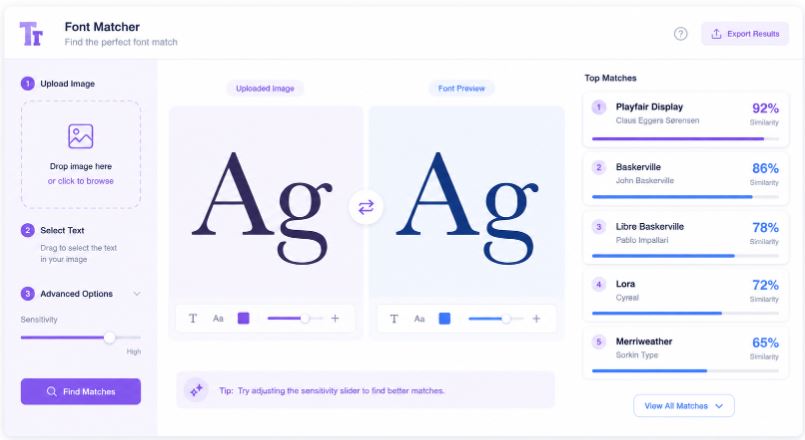
Online Font Finder for Instant Font Matches
Find fonts from images instantly with an online font finder built for designers, creators, and curious internet detectives.
An online font finder helps users identify fonts from images, screenshots, logos, or graphics without manually searching through endless type libraries. Upload an image, let AI analyze the lettering, and discover matching or similar fonts within seconds.
I used to think font identification was one of those oddly permanent internet frustrations. Like trying to remember a song from three notes or recognizing a face without knowing where you’ve seen it before. You stare at a logo, poster, Instagram graphic, or packaging design and somehow the font becomes the only thing your brain can focus on.
Not the message.
Not the product.
Just the typography.
And the strange part is how quickly it turns into a rabbit hole.
You zoom in. Squint at letters. Search phrases like “fonts similar to Netflix logo” or “what font is used in this image.” Then you open twenty browser tabs and convince yourself lowercase “a” shapes are somehow a reliable forensic tool.
That’s usually the moment people start looking for an online font finder.
Not because typography suddenly became fascinating overnight, but because manually identifying fonts feels unnecessarily difficult in a world where AI can describe paintings, transcribe speech, and generate entire videos.
The gap between “I found a font I love” and “I know what it is” has been surprisingly large for years.
That’s exactly where tools like Find Font enter the conversation. Instead of forcing users to become accidental typography historians, the process becomes visual, direct, and fast: upload an image, let AI analyze the letterforms, and get font matches instantly.
Simple idea. Massive relief.
And honestly, that relief matters more than most people expect.
What Is an Online Font Finder?
An online font finder is a tool that identifies fonts from uploaded images, screenshots, graphics, logos, or photos containing text.
Instead of searching manually through thousands of typefaces, users upload an image and let AI analyze visual characteristics like:
• Letter shapes
• Character spacing
• Stroke thickness
• Serif structure
• Curves and geometry
• Font weight and style
The tool then suggests exact or visually similar font matches.
At first glance, it sounds like a niche problem. Until you realize how often typography appears in daily life.
A restaurant logo.
A YouTube thumbnail.
A wedding invitation.
A startup landing page.
Fonts quietly shape emotional perception everywhere online.
According to typography research from MIT Press Reader, typography directly influences readability, trust, and emotional response. People react to fonts before consciously processing words.
That tiny detail changes everything.
Because suddenly finding a font isn’t just about aesthetics anymore. It’s about recreating a feeling.
Why Font Identification Feels So Frustrating
There’s a hidden reason people struggle with font identification: most fonts look deceptively similar until they don’t.
Two sans-serif fonts may appear identical from far away. But then one letter changes shape and the entire typeface reveals a different personality.
It’s subtle. Almost psychological.
One font feels corporate.
Another feels cinematic.
Another feels playful without trying.
The human brain notices these shifts even when it cannot explain them.
That’s why traditional font searching often breaks down. Users usually don’t know:
• The font family
• The designer
• The typography category
• The naming convention
• Whether the font is custom-made
They only know one thing:
“I saw this somewhere and now I need it.”
An online font finder solves that emotional gap between inspiration and identification.
How an Online Font Finder Actually Works
Most people imagine font recognition tools operating like magic. Upload image. Receive answer. Done.
But underneath that simplicity is a layered visual analysis process.
Image Processing Comes First
Before fonts can be identified, the uploaded image needs cleanup and interpretation.
AI systems typically analyze:
• Text isolation
• Contrast levels
• Character clarity
• Perspective distortion
• Background noise
Low-quality screenshots create friction here. So do blurry logos and angled photos.
A clean image dramatically improves recognition accuracy.
Character Recognition Matters More Than People Realize
The real breakthrough happens when the tool examines individual letterforms.
The curve of “R.”
The tail of “Q.”
The width of “M.”
Typography is basically fingerprint analysis for letters.
According to Find Font, modern AI-based font recognition systems compare uploaded typography against extensive font databases to surface highly relevant matches quickly.
That speed changes user behavior entirely.
People stop hesitating before searching.
Why Designers Depend on Online Font Finder Tools
Professional designers rarely work in a vacuum.
Creative work constantly intersects with existing visual culture. A client sends a screenshot. A brand references another campaign. A creator spots typography on social media and wants something similar.
Without an online font finder, the workflow becomes painfully manual.
Designers often end up:
• Comparing fonts one by one
• Browsing giant typography libraries
• Guessing font families
• Reverse-engineering branding assets
That process drains creative energy fast.
Ironically, the longer someone searches for a font, the less creative they become.
Because energy shifts from creation into investigation.
An AI-driven online font finder compresses that investigation into seconds.
And psychologically, that matters.
It keeps momentum alive.
The Hidden Emotional Side of Typography
Most articles about fonts stay technical. Serif versus sans-serif. Kerning. Readability metrics.
But typography is emotional architecture.
Fonts quietly tell users how they should feel before they consciously read anything.
A luxury serif whispers elegance.
A rounded font feels approachable.
A condensed bold typeface creates urgency.
People rarely articulate this directly, but they respond to it constantly.
That’s why identifying fonts feels strangely personal.
You’re not only identifying text style. You’re trying to recreate a mood you experienced somewhere else.
An online font finder becomes less like a technical utility and more like visual memory retrieval.
That sounds dramatic until you actually use one.
Then it suddenly makes perfect sense.
Why Upload-Based Font Detection Beats Manual Search
Manual font searching still exists. Some people enjoy it. Designers sometimes treat it like detective work.
But for most users, manual searching introduces unnecessary friction.
Manual Search Problems
• Requires typography knowledge
• Consumes time
• Depends on visual guessing
• Often produces inaccurate matches
• Creates decision fatigue
Now compare that with upload-based AI detection.
AI-Powered Font Detection Advantages
Manual SearchAI Upload Detection
Slow comparison processInstant analysis
Requires font expertiseBeginner-friendly
Limited visual memoryDatabase-driven matching
High frustration rateFast recommendations
Guess-based workflowPattern recognition
The shift feels similar to reverse image search changing how people identify photographs online.
Once users experience instant recognition, going backward feels exhausting.
The Rise of AI in Typography Discovery
Typography used to belong almost exclusively to designers.
Now everyone interacts with fonts daily:
• Content creators
• Etsy sellers
• YouTubers
• Social media managers
• Brand founders
• Students
• Meme creators
AI changed the accessibility layer.
Suddenly typography exploration no longer requires years of design experience.
That democratization matters because visual identity has become part of everyday communication online.
Even casual creators now care about:
• Branding consistency
• Thumbnail readability
• Instagram aesthetics
• Website personality
• Packaging visuals
And when visual identity matters, font identification naturally follows.
An online font finder quietly supports this entire ecosystem.
Why Accuracy Matters More Than Speed
Fast results feel impressive. But accuracy determines whether users trust the tool enough to return.
A poor match creates immediate disappointment because typography differences become obvious quickly once placed side by side.
The challenge is that fonts often exist in overlapping families:
• Regular
• Semi-bold
• Condensed
• Extended
• Italic
• Variable versions
One small mismatch changes the entire visual tone.
That’s why advanced font recognition systems focus on nuanced character analysis rather than broad categorization.
And honestly, users notice the difference immediately.
Because the goal usually isn’t “close enough.”
The goal is:
“That’s the exact font.”
Where People Commonly Use an Online Font Finder
The use cases are broader than most people expect.
Branding Projects
Businesses frequently need to identify typography from:
• Competitor branding
• Archived logos
• Old marketing materials
• Packaging references
Social Media Design
Creators often screenshot typography from:
• TikTok videos
• Instagram graphics
• YouTube thumbnails
• Pinterest designs
Website Recreation
Developers and marketers use font finders when rebuilding or modernizing websites.
Print and Merchandise
Fonts appear constantly across:
• Posters
• T-shirts
• Book covers
• Invitations
• Product labels
The interesting part is how often users arrive emotionally frustrated rather than technically curious.
They don’t search because they love font theory.
They search because they’re stuck.
What Makes Find Font Different
Many tools approach font recognition like a database problem.
Find Font approaches it more like a usability problem.
That distinction matters.
The biggest pain point for users isn’t simply “finding fonts.” It’s reducing the friction between inspiration and action.
Find Font focuses on:
• Fast image uploads
• AI-powered recognition
• Simple workflows
• Accessible discovery
• Instant font matching
No unnecessary complexity.
No intimidating typography jargon.
No feeling like you need design school experience first.
That simplicity is surprisingly important because users often arrive overwhelmed already.
A clean workflow lowers cognitive resistance immediately.
The Internet Has Become Hyper-Visual
Ten years ago, text dominated the web.
Today, visual identity dominates attention.
Fonts now influence:
• Click-through rates
• Brand recognition
• Watch time
• Trust perception
• Purchase decisions
Typography quietly shapes internet behavior.
According to Nielsen Norman Group, typography directly affects usability and reading comprehension across digital experiences.
That means font discovery is no longer just a design hobby.
It’s infrastructure for digital communication.
An online font finder exists because visual identity became unavoidable online.
Why People Obsess Over “The Perfect Font”
This part fascinated me more the deeper I looked into typography culture.
People rarely search for “a decent font.”
They search for the perfect one.
Because fonts carry emotional symbolism:
• Minimal fonts imply sophistication
• Vintage fonts suggest nostalgia
• Geometric fonts feel futuristic
• Script fonts feel intimate
Typography acts like body language for brands and creators.
Which explains why identifying the right font feels disproportionately important compared to other design elements.
A font can quietly make something feel:
• Trustworthy
• Cheap
• Elegant
• Loud
• Modern
• Outdated
And most users sense this instinctively.
Even if they can’t explain why.
Online Font Finder Tools Reduce Creative Friction
Creative momentum is fragile.
One unresolved design problem can derail an entire workflow.
A missing font becomes:
• Thirty minutes of searching
• Fifteen browser tabs
• Endless guessing
• Decision paralysis
That interruption matters more than people realize.
Because creativity often depends on emotional flow.
An online font finder removes one of the internet’s weirdly persistent creative bottlenecks.
Not glamorous.
Not dramatic.
Just incredibly useful.
And usefulness compounds over time.
The Future of Font Recognition
The next generation of font recognition will likely become:
• More contextual
• More predictive
• More personalized
• More integrated into design tools
Eventually, identifying typography may feel as effortless as scanning QR codes.
Upload image.
Instant recognition.
Suggested pairings.
License guidance.
Alternative recommendations.
The barrier between inspiration and execution keeps shrinking.
And honestly, that trend feels inevitable now.
Because modern internet behavior rewards speed, simplicity, and visual precision simultaneously.
FAQ About Online Font Finder
What is an online font finder?
An online font finder is a tool that identifies fonts from uploaded images using AI-powered visual analysis.
Can I find a font from a screenshot?
Yes. Most modern font finders allow users to upload screenshots containing text for font recognition.
How accurate are online font finder tools?
Accuracy depends on image quality, font uniqueness, and database coverage. Clear images usually produce better matches.
Does Find Font use AI for font detection?
Yes. Find Font uses AI-powered image analysis to identify fonts from uploaded visuals.
Can an online font finder detect custom fonts?
It can sometimes detect visually similar matches, though completely custom typography may not have exact database equivalents.
Key Takings
• An online font finder helps users identify fonts instantly from uploaded images.
• Typography influences emotional perception before people consciously read text.
• AI-powered font recognition reduces creative friction dramatically.
• Upload-based font detection is faster and more accessible than manual searching.
• Find Font simplifies font discovery through image-based AI analysis.
• Modern creators increasingly depend on typography for branding and visual identity.
• Accurate font recognition matters because tiny letterform differences change emotional tone.